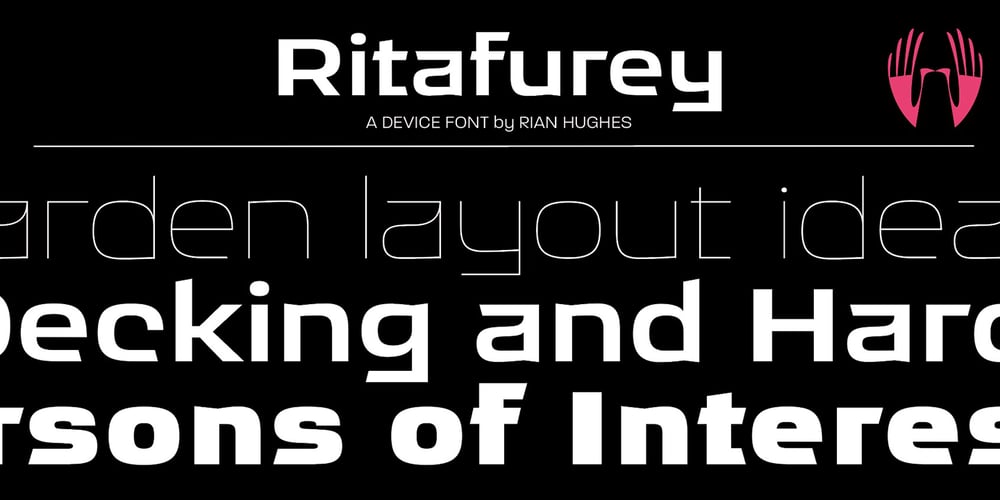
Ritafurey Font Family was designed by Rian Hughes and published by Device. Ritafurey contains 14 styles and family package options. Ritafurey is an extended sans in seven weights, with characteristic low bowls on the P and R. Modern, sleek and corporate, but with a dash of character. It has been used on tech logos, summer blockbuster movies and Playstation skateboarding games. This new version reinstates the original Unicase versions of the M and N (available through the Glyph palette or Opentype options), adds extensive international character support, redrawn and respaced glyphs, a new Regular weight for better weight flow distribution, and many other additional glyphs. (Note the the new weights differ slightly from the old of the same name, so may change the appearance of existing files.)